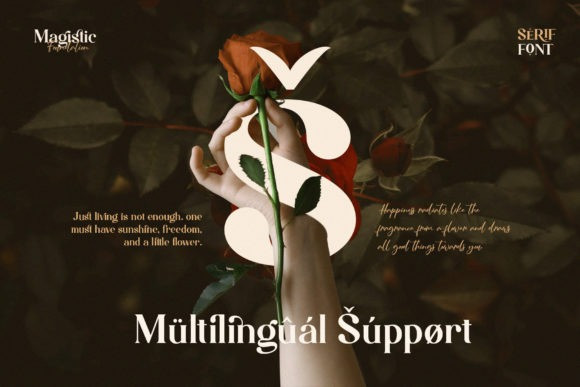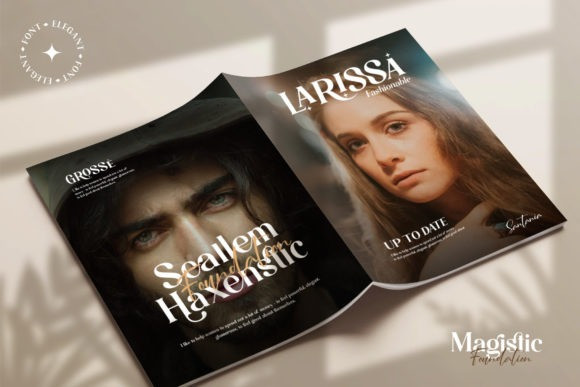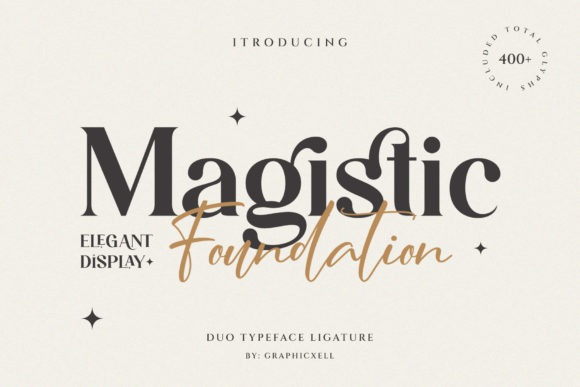
Magistic Foundation Font
Magistic Foundation Font is a cool, bold and versatile duo font (script and serif). It is defined by smooth curves and is perfect for fashion branding or editorial designs. Add it confidently to your projects, and you will love the results.